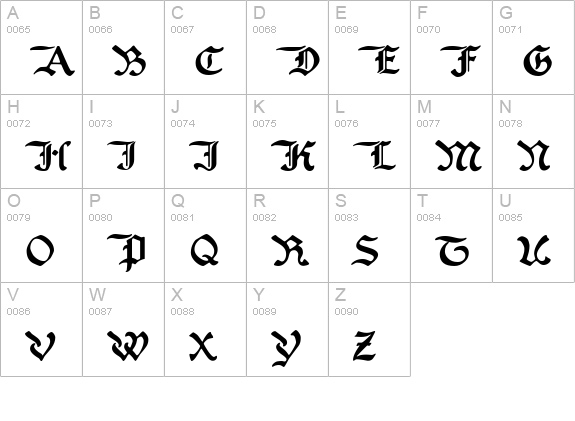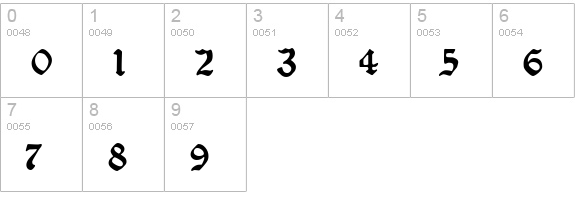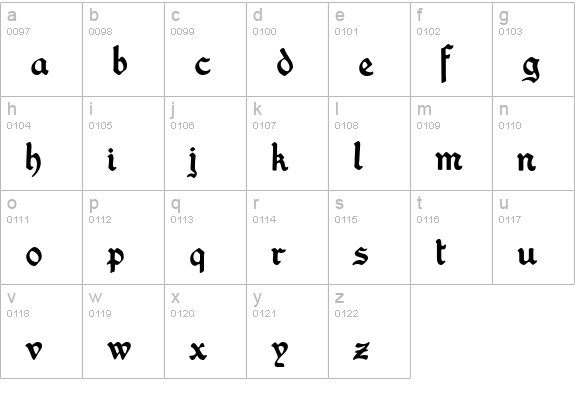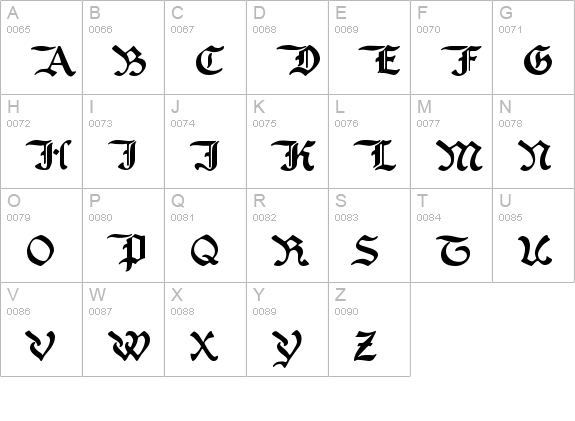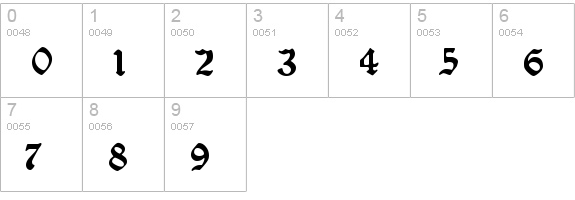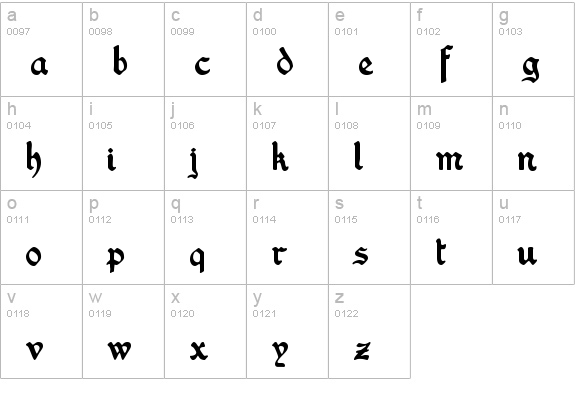
Washington Text Alternates Font Details
Washington Text Alternates is a versatile and stylish font that exudes sophistication and elegance. This font features unique alternate characters, adding a touch of creativity and flair to your designs. With its classic yet contemporary aesthetic, Washington Text Alternates is perfect for a wide range of projects, from branding to editorial design. The best part? Washington Text Alternates is available for free download at FontsMarket.com. This means that you can easily access and use this beautiful font in your projects without any cost. Whether you're working on a professional design project or simply looking to add a bit of flair to your personal creations, Washington Text Alternates is the perfect choice. Download it today and elevate your designs with this stunning font.